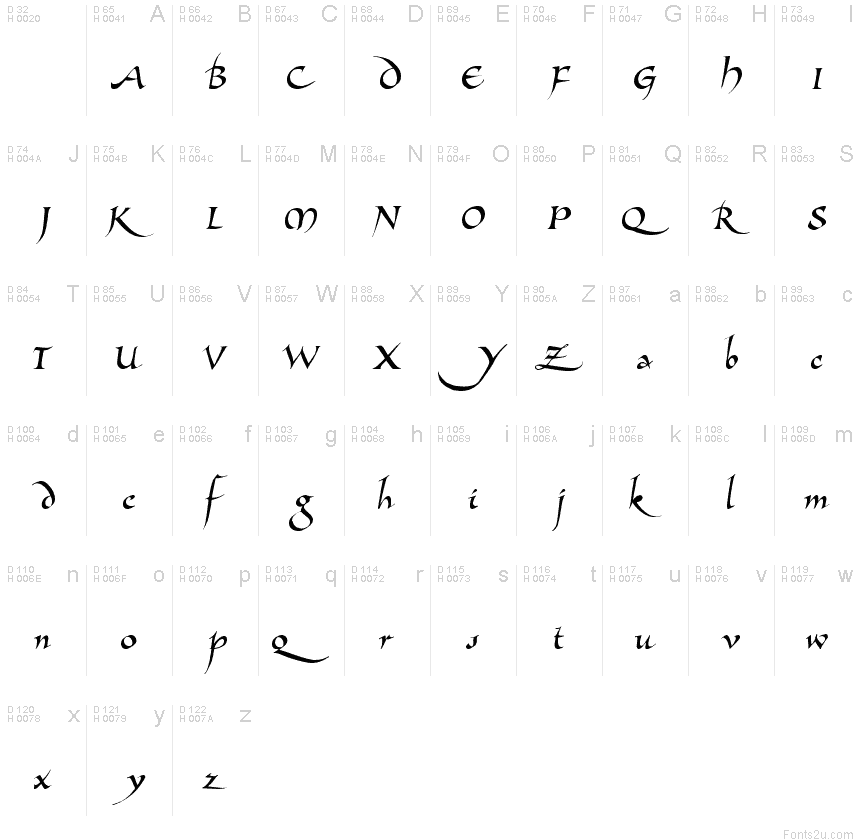
Allembert
Allembert font by David F. Nalle - Scriptorium Font Library is a free vintage handwritten script typeface with the elegance of ink swept quickly across parchment. Its tall, leaning forms and sharp, brushlike strokes feel both literary and slightly wild, like a signature dashed off by an old-world scholar. The letters link with a smooth, rhythmic flow that gives titles and names a sense of movement and ceremony.
Using Allembert, you can bring a historical, human touch to wedding invitations, book covers, perfume or apothecary labels, boutique logos, restaurant menus, and period-themed posters. This free font shines when it’s given room to breathe at larger sizes, where the flicks and curves stay crisp and expressive. Pair it with a simple serif or clean sans for body text to keep layouts readable while the script carries all the drama and charm.